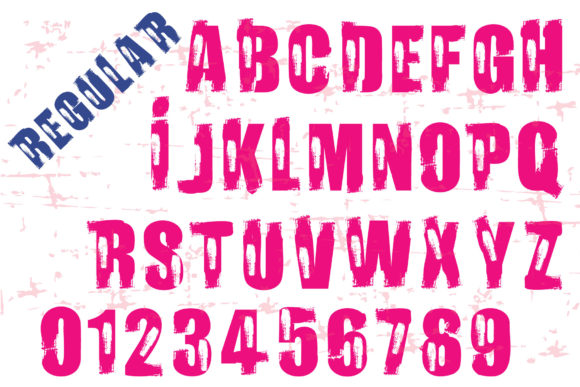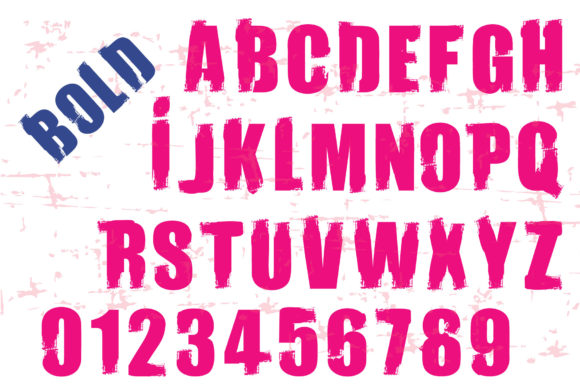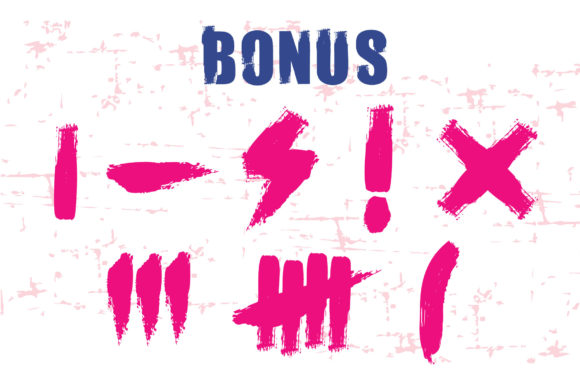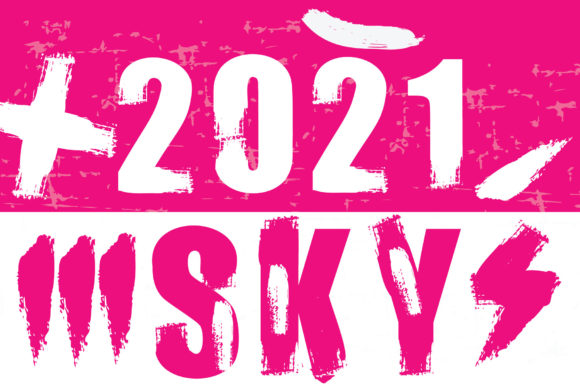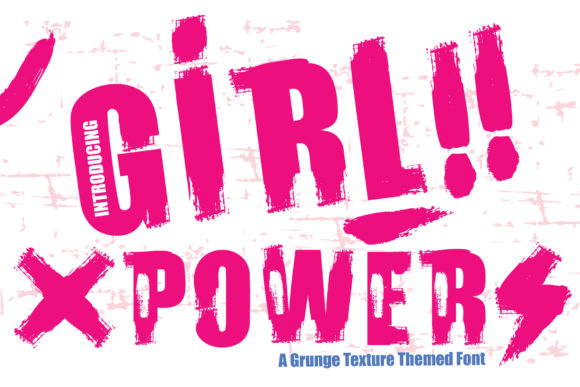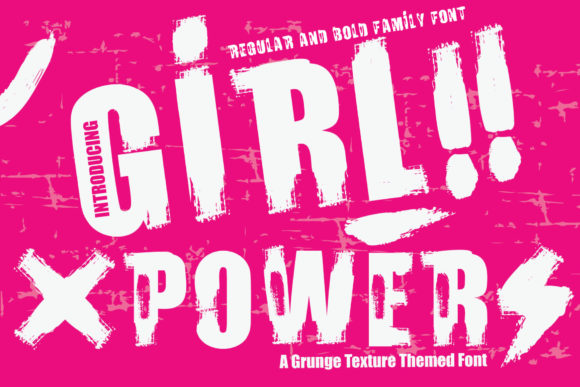
Unleash Your Creativity with Girl Power Font
Are you a designer or crafter looking for a font that can add a touch of boldness and edginess to your projects? Look no further than the Girl Power Font. This cool, bold, and rough styled display font is perfect for creating stunning posters, flyers, and prints that demand attention. In this article, we’ll explore the features and benefits of Girl Power Font, and how you can use it to take your designs to the next level.
What is Girl Power Font?
Girl Power Font is a unique and eye-catching display font that is designed to make a statement. Its bold and rough texture gives it a distinctive look that is perfect for creating designs that exude confidence and attitude. The font is versatile and can be used for a wide range of projects, from posters and flyers to logos and branding materials.
Key Features of Girl Power Font
- Bold and Rough Texture: The font’s bold and rough texture gives it a unique and edgy look that is perfect for creating designs that stand out.
- Cool and Modern Style: The font’s modern style makes it perfect for designers and crafters who want to create designs that are trendy and contemporary.
- Display Font: Girl Power Font is a display font, which means it’s designed to be used at larger sizes, making it perfect for posters, flyers, and other print materials.
- Easy to Read: Despite its bold and rough texture, the font is easy to read, making it perfect for designs that require a clear and concise message.
Benefits of Using Girl Power Font
There are many benefits to using Girl Power Font in your designs. Here are just a few:
- Adds Edge to Your Designs: The font’s bold and rough texture adds an edge to your designs, making them stand out from the crowd.
- Perfect for Bold Statements: The font is perfect for making bold statements and creating designs that demand attention.
- Versatile: The font can be used for a wide range of projects, from posters and flyers to logos and branding materials.
How to Use Girl Power Font
Using Girl Power Font is easy. Here are just a few tips to get you started:
- Pair it with Other Fonts: Pair Girl Power Font with other fonts to create a unique and interesting contrast.
- Use it for Headlines: Use the font for headlines and titles to add a touch of boldness and edginess to your designs.
- Experiment with Colors: Experiment with different colors to find the perfect combination that works with your design.
Endless Possibilities
Girl Power Font offers endless possibilities for designers and crafters. Here are just a few ideas to get you started:
- Posters and Flyers: Use the font to create stunning posters and flyers that demand attention.
- Logos and Branding Materials: Use the font to create logos and branding materials that exude confidence and attitude.
- Social Media Graphics: Use the font to create social media graphics that stand out from the crowd.
Girl Power Font is a cool, bold, and rough styled display font that is perfect for designers and crafters who want to add a touch of edge to their designs. With its bold and rough texture, modern style, and versatility, this font is perfect for creating stunning posters, flyers, and prints that demand attention. So why wait? Download Girl Power Font today and explore its endless possibilities.